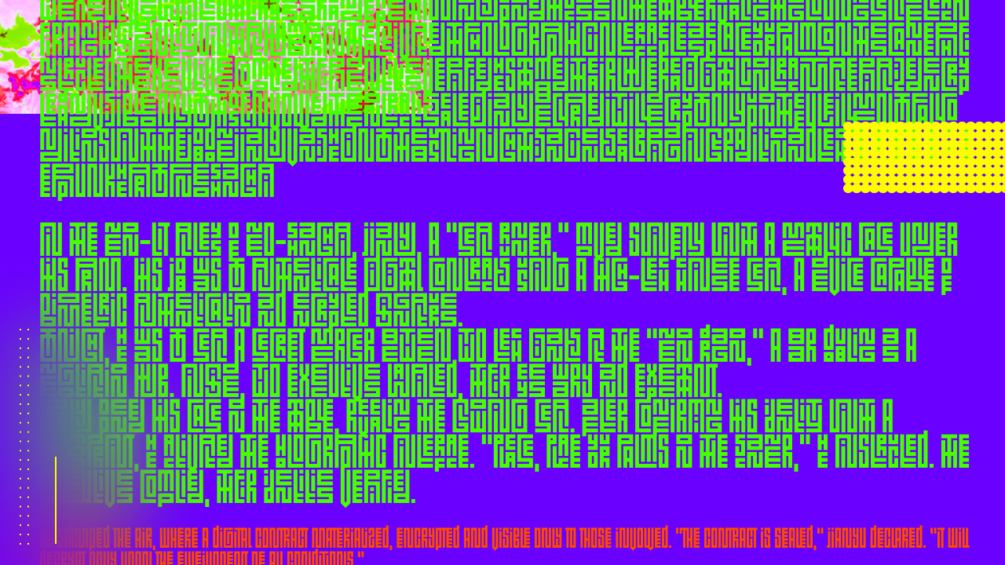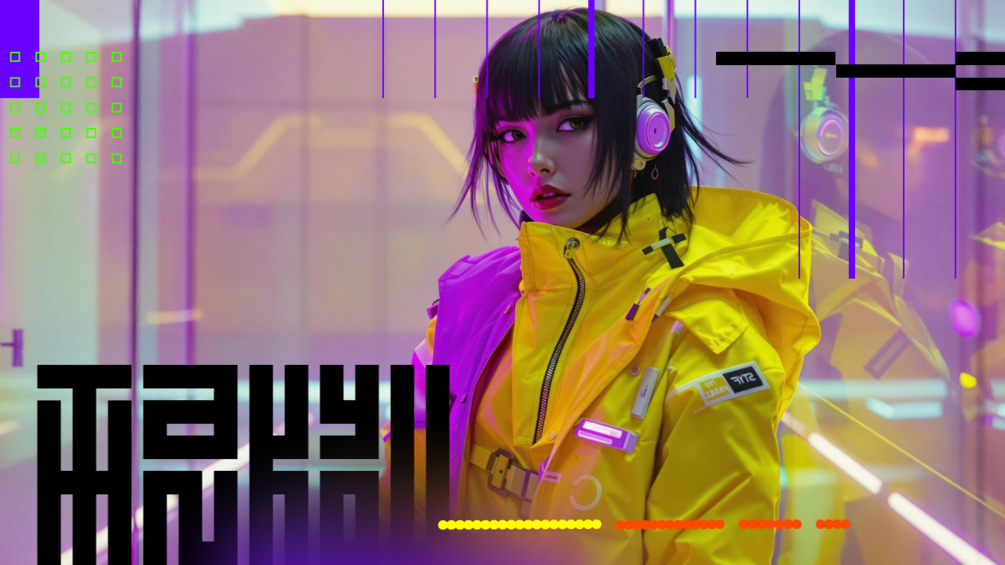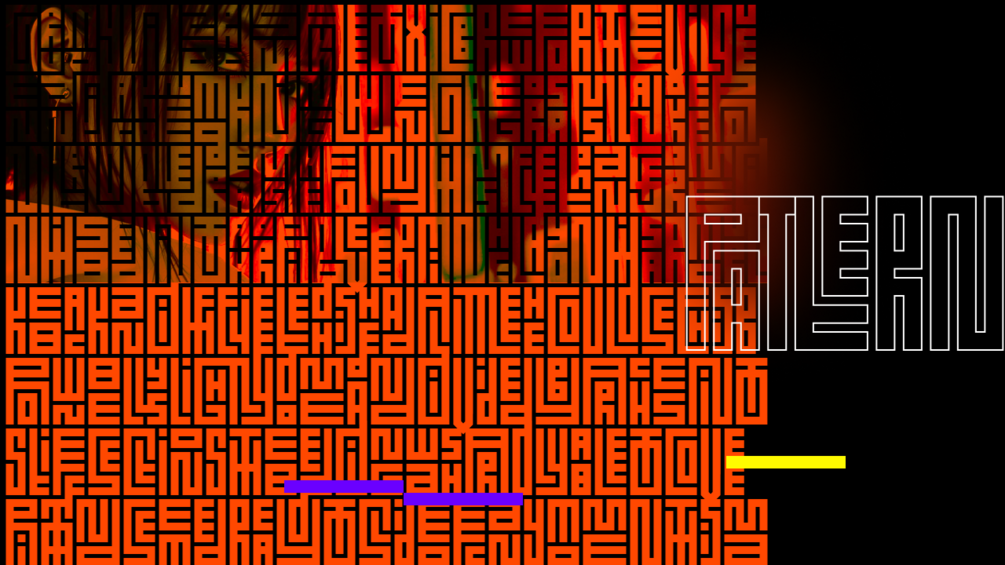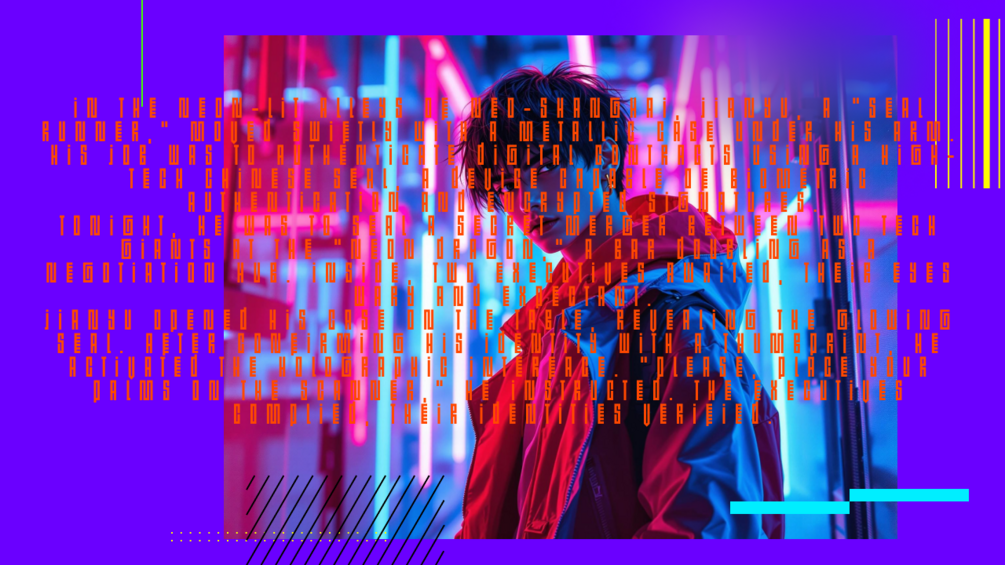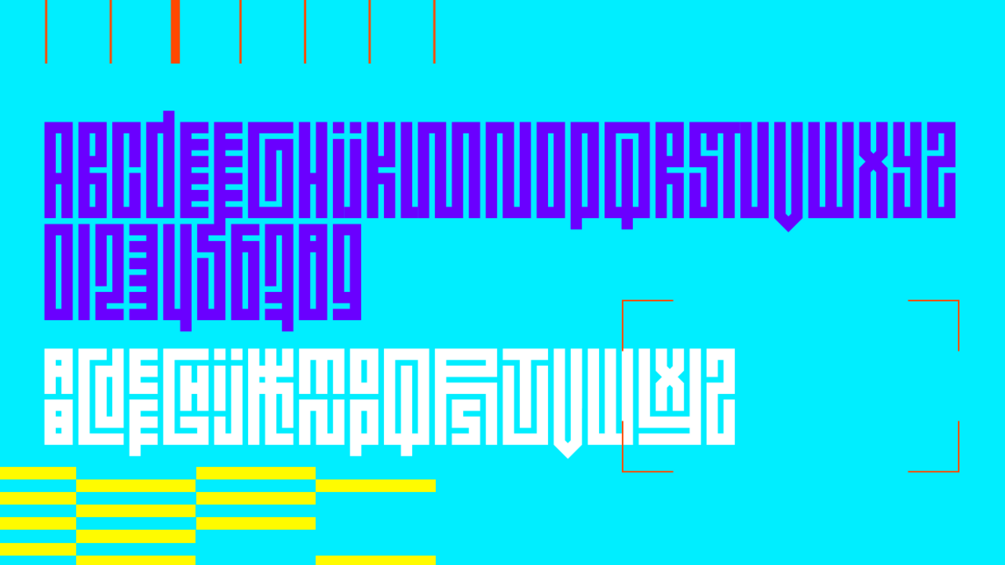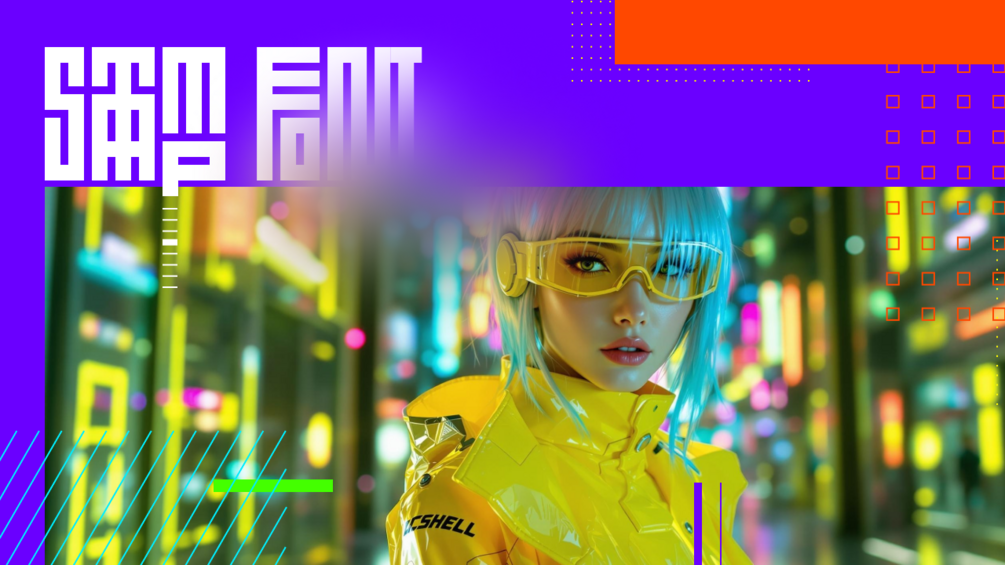
Stamp font
This is Stamp - an accident variable font inspired by Chinese seal.
With using of 471 ligatures you easily can get an interesting pattern from any world, phrase or paragraph. Turn on ligatures, start typing, and see what you will get.
Supported basic Latin glyphs, numbers, and simple symbols.